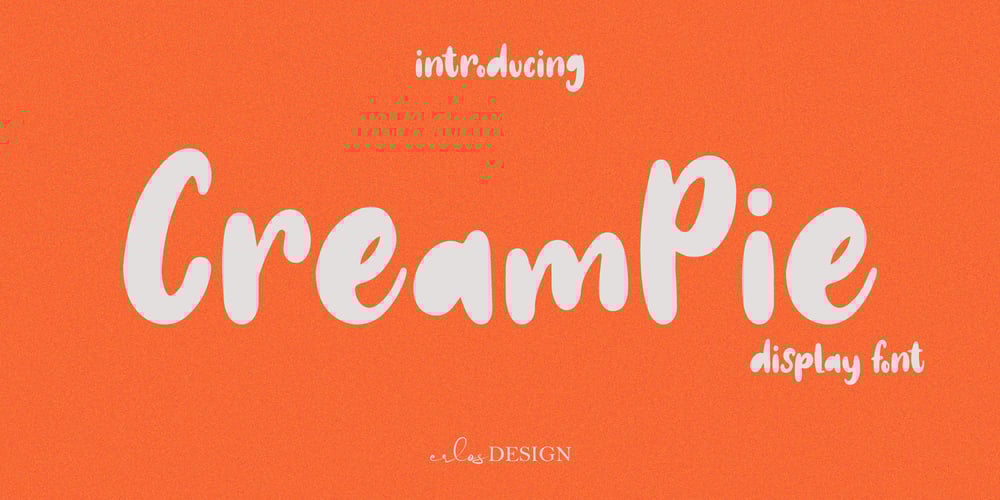
Cream Pie Font Family was designed by Erlangga Suherman and published by ErlosDesign. Cream Pie contains 1 styles and family package options. CreamPie – Handwritten Display Font by erlosDESIGNCreamPie is a sweet and friendly handwritten font. Its natural and unique style makes it incredibly fitting to a large pool of designs. The only limit is your imagination!